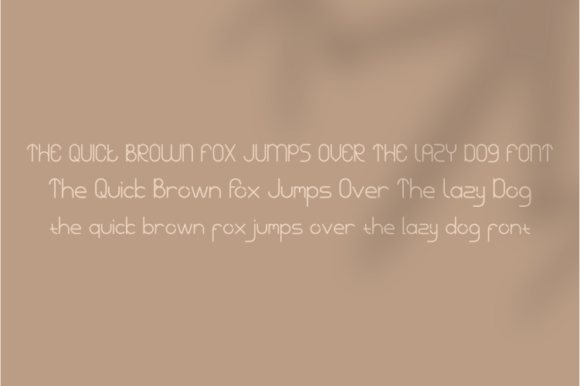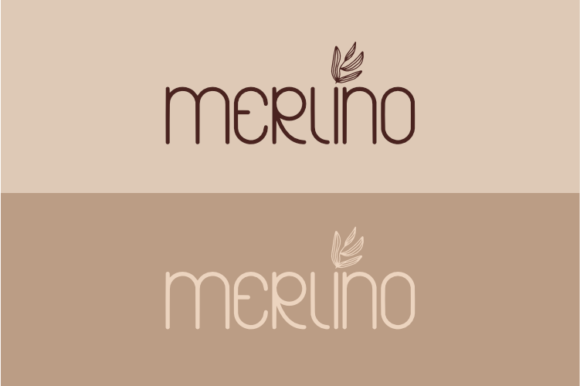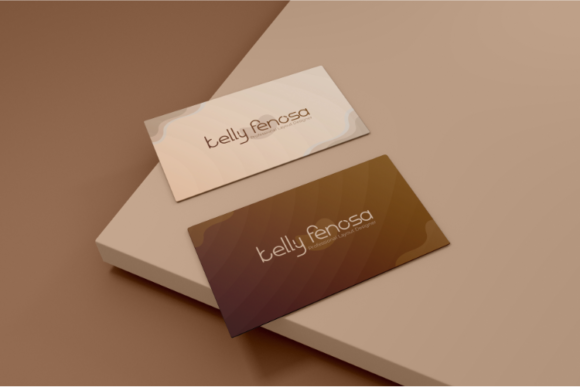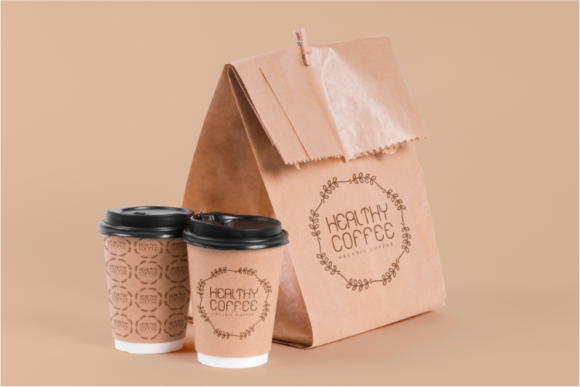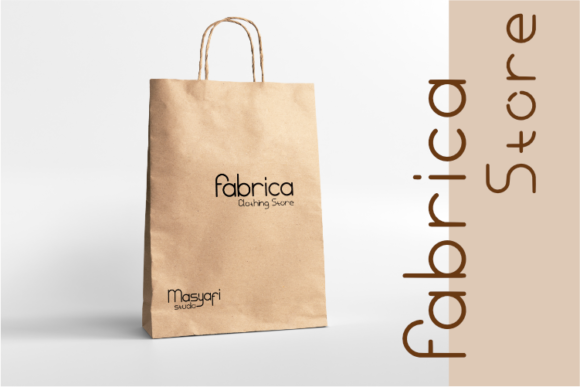
Introducing Fabrica Font: The Ultimate Sans Serif for Creative Projects
Are you tired of using the same old fonts for your design projects? Look no further than Fabrica Font, a minimal and neat sans serif font that’s perfect for adding a touch of modernity to your creative ideas. With its clean lines and simple design, Fabrica Font is an incredibly versatile typeface that can be matched to a wide range of projects, from branding and advertising to packaging and digital media.
The Benefits of a Sans Serif Font
Sans serif fonts have become increasingly popular in recent years, and for good reason. They offer a clean and modern aesthetic that’s perfect for designs that require a bit of sophistication and elegance. Unlike serif fonts, which feature small lines and flourishes at the ends of the letters, sans serif fonts are simple and unadorned, making them highly legible and easy to read.
Fabrica Font takes the benefits of sans serif fonts to the next level with its minimalist design. The font features simple, geometric shapes that are both elegant and highly legible. Whether you’re designing a logo, a brochure, or a website, Fabrica Font is the perfect choice for adding a touch of modernity to your project.
The Versatility of Fabrica Font
One of the standout features of Fabrica Font is its versatility. The font can be used for a wide range of projects, from large-scale branding campaigns to small-scale craft projects. Whether you’re a professional designer or a DIY crafter, Fabrica Font is the perfect choice for adding a touch of sophistication to your work.
Here are just a few examples of the many projects that Fabrica Font can be used for:
- Branding and advertising: Use Fabrica Font to create a modern and sophisticated brand identity that will help your business stand out from the competition.
- Packaging design: Add a touch of elegance to your product packaging with Fabrica Font, perfect for food, fashion, and beauty brands.
- Digital media: Use Fabrica Font to create engaging and modern digital content, from social media graphics to website headers.
- Craft projects: Add a touch of sophistication to your DIY craft projects, from handmade cards to knitted scarves.
Why Choose Fabrica Font?
So why choose Fabrica Font over other sans serif fonts on the market? Here are just a few reasons why Fabrica Font stands out:
- Unique design: Fabrica Font features a unique and modern design that’s sure to make your projects stand out.
- High legibility: The font is highly legible, even at small sizes, making it perfect for use in a wide range of projects.
- Versatility: Fabrica Font can be used for a wide range of projects, from branding and advertising to packaging and digital media.
Key Features of Fabrica Font
- Font style: Sans serif
- Font weight: Minimal
- Legibility: High
- Versatility: Suitable for a wide range of projects
- Design: Modern and elegant